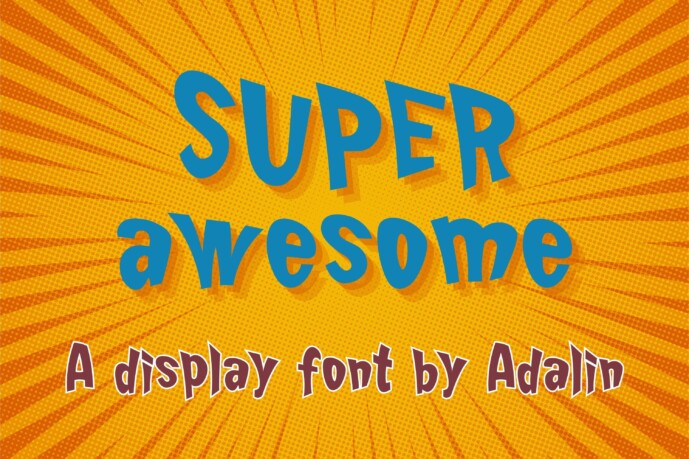
Super Awesome Font
Designer: Adalin Digital
Super Awesome is a chunky, confident display font with a playful soul. This font brings instant charisma to posters, branding, kids’ merch, or social media graphics. Its blocky serifs and curved lines make it both eye-catching and fun!